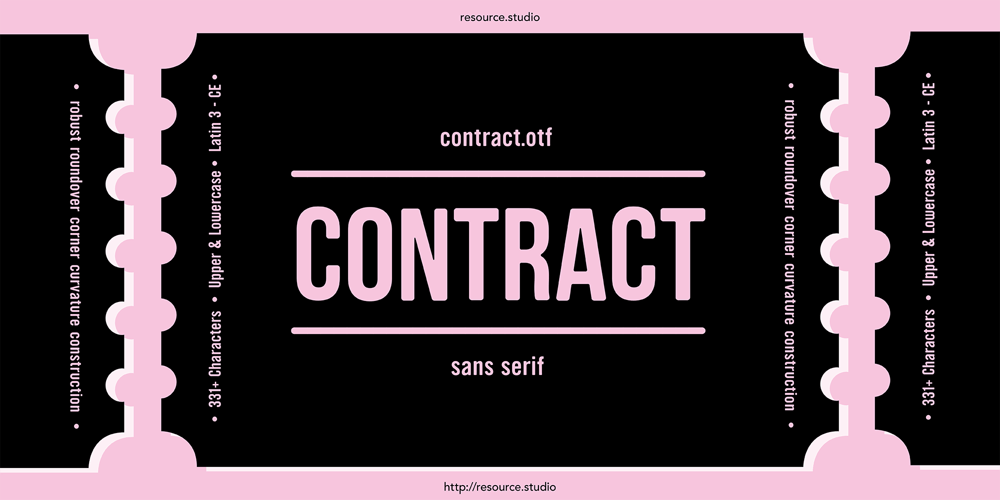
Contract Font Family was designed by Francis Kenney and published by resource.studio. Contract contains 1 styles and family package options. A New Typographic workhorse with robust round over corner curvature construction.Rounded condensed sans serif. 331+ Characters Upper & Lowercase Adobe Latin 3 – CE